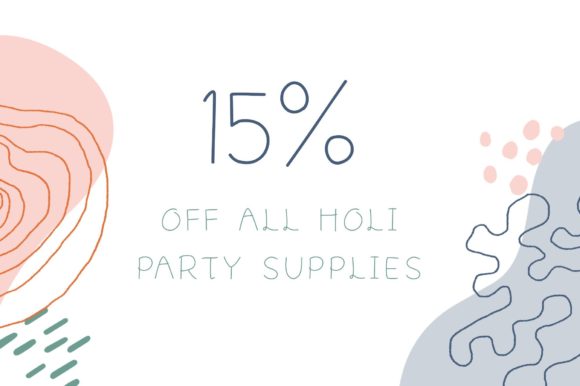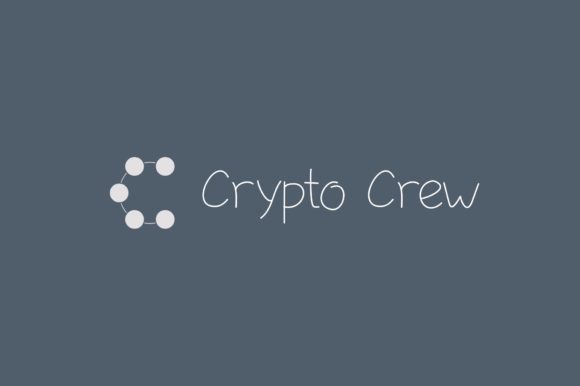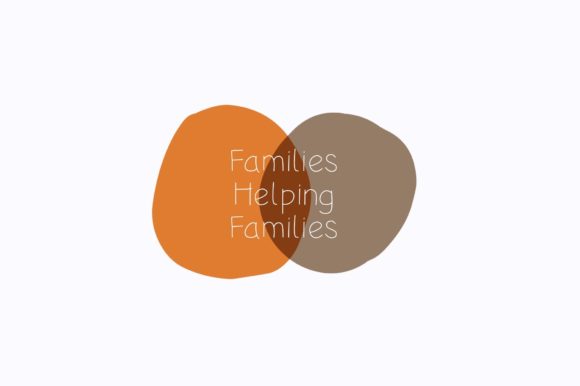
Introducing Caroline Font: The Perfect Dainty Accent for Your Creative Projects
Are you looking for a font that can add a touch of elegance and sophistication to your creative projects? Look no further than Caroline Font! This slim and chic handwritten font is perfect for designers and crafters who want to add a dainty accent to their work. In this article, we’ll explore the features and benefits of Caroline Font, and show you can use it to take your projects to the next level.
What is Caroline Font?
Caroline Font is a beautiful handwritten font that is designed to be slim and chic. Its delicate lines and curves make it perfect for adding a touch of elegance to any project. The font is highly versatile and can be used for a wide range of applications, from Cricut projects to logos, branding, and more.
Features of Caroline Font
- Slim and Chic Design: Caroline Font has a slim and chic design that makes it perfect for adding a dainty accent to your projects.
- Handwritten Style: The font has a handwritten style that gives it a personal and unique touch.
- Highly Versatile: Caroline Font can be used for a wide range of applications, from Cricut projects to logos, branding, and more.
- Elegant and Sophisticated: The font’s elegant and sophisticated design makes it perfect for projects that require a touch of luxury.
Uses for Caroline Font
Caroline Font is highly versatile and can be used for a wide range of applications. Here are some ideas to get you started:
- Cricut Projects: Use Caroline Font to add a personal touch to your Cricut projects, such as vinyl decals, iron-on designs, and paper crafts.
- Design and Logos: Use the font to create beautiful logos and branding materials for your business or personal projects.
- Mugs and Pantry Labels: Add a touch of elegance to your mugs and pantry labels with Caroline Font.
- Wedding Invitations: Use the font to create beautiful and elegant wedding invitations that will set the tone for your special day.
- Stickers and Business Cards: Use Caroline Font to create custom stickers and business cards that will help you stand out.
- Greeting Cards and Posters: Use the font to create beautiful greeting cards and posters that will make a lasting impression.
- Social Media and Planner Prints: Use Caroline Font to add a touch of elegance to your social media graphics and planner prints.
Benefits of Using Caroline Font
There are many benefits to using Caroline Font in your projects. Here are a few:
- Adds a Touch of Elegance: Caroline Font adds a touch of elegance and sophistication to any project.
- Highly Versatile: The font can be used for a wide range of applications, making it a great addition to your font library.
- Easy to Read: The font is easy to read, even at small sizes, making it perfect for use in a variety of applications.
- Unique and Personal: The font’s handwritten style gives it a unique and personal touch that will help your projects stand out.
Tips for Using Caroline Font
Here are a few tips for using Caroline Font in your projects:
- Use it with Other Fonts: Caroline Font pairs well with other fonts, so don’t be afraid to experiment with different combinations.
- Experiment with Sizes and Colors: The font looks great in a variety of sizes and colors, so experiment to find the look that works best for your project.
- Use it for Headings and Titles: Caroline Font is perfect for use in headings and titles, where its elegant design can really shine.
Caroline Font is a beautiful and versatile font that can add a touch of elegance and sophistication to any project. Its slim and chic design makes it perfect for a wide range of applications, from Cricut projects to logos, branding, and more. With its highly versatile design and easy-to-read style, Caroline Font is a great addition to any font library. So why not give it a try and see how it can elevate your projects to the next level?